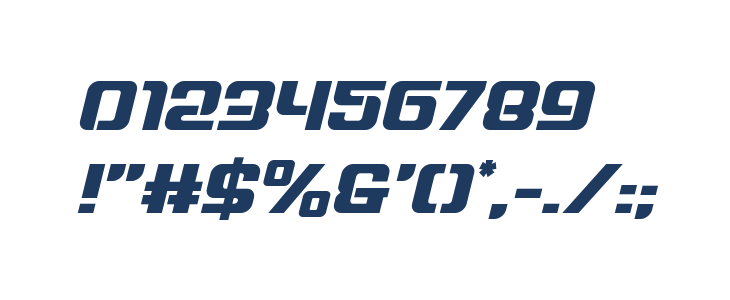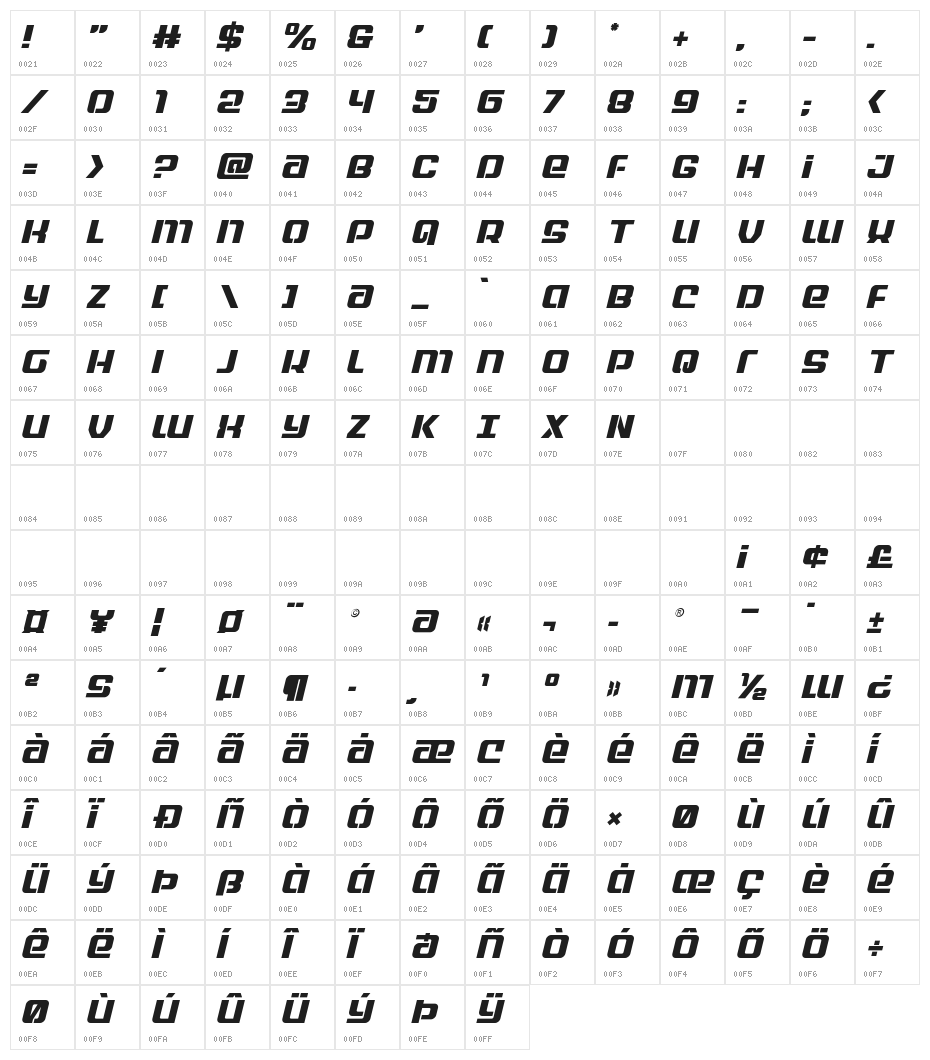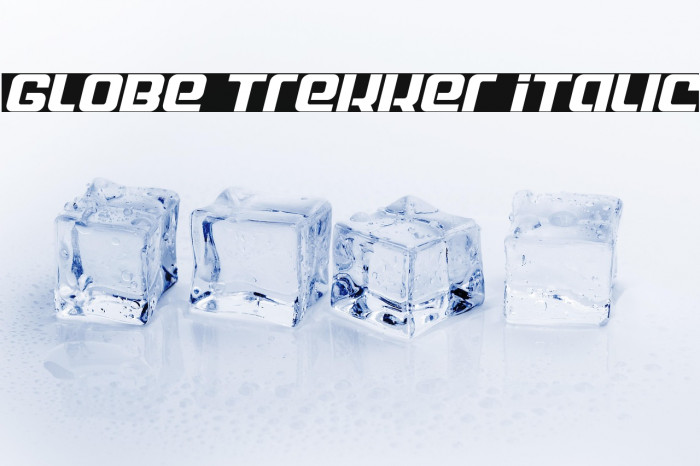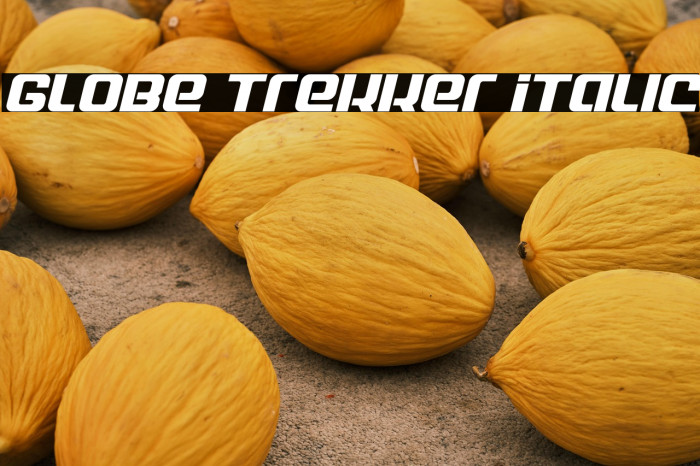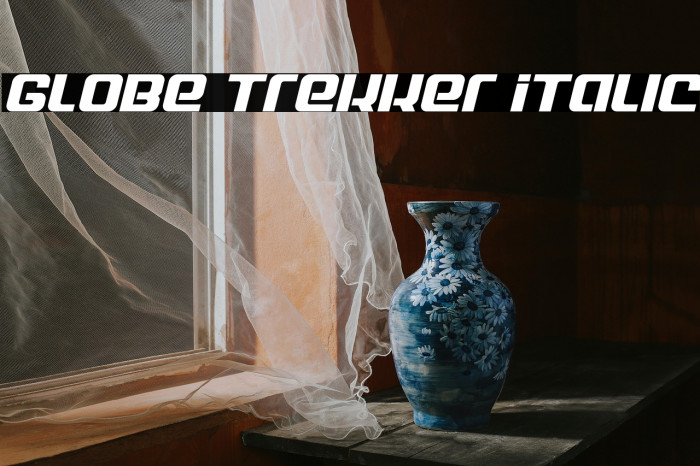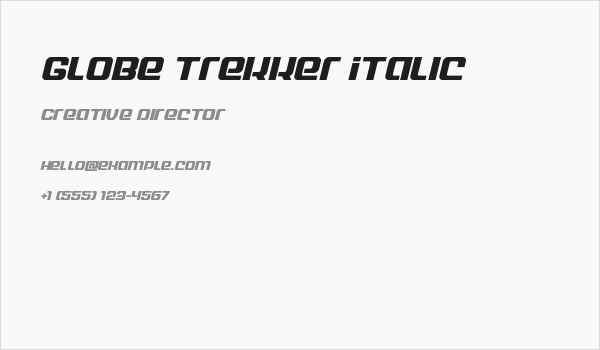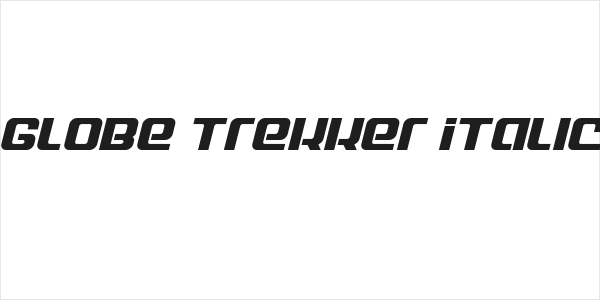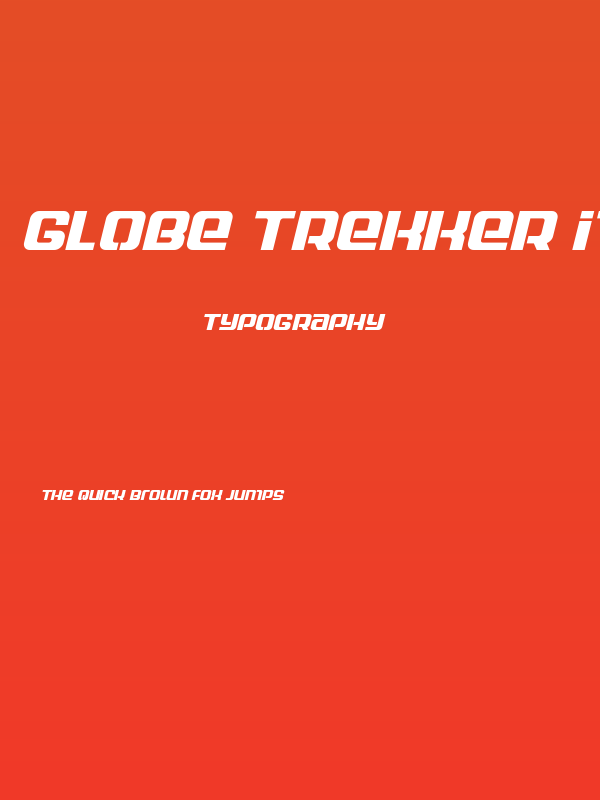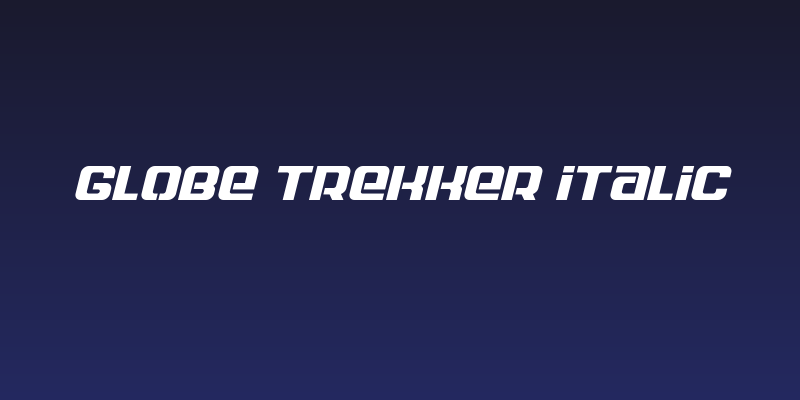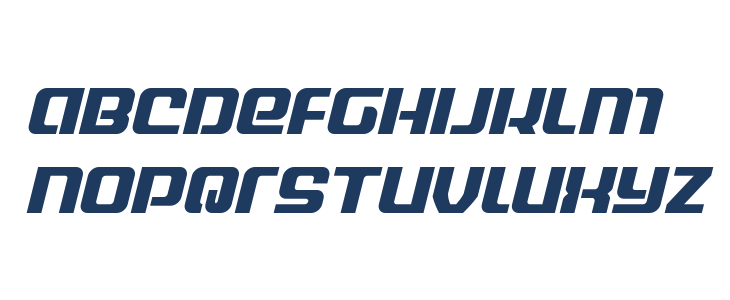
Globe Trekker Italic Font
Globe Trekker Italic Description
This font features a bold, italicized style with a modern and dynamic appearance. The characters are slightly slanted, giving a sense of motion and energy. The strokes are thick and consistent, contributing to a strong visual impact. The design is clean and geometric, with sharp angles and smooth curves that enhance its contemporary feel. The spacing between characters is tight, which adds to the compact and cohesive look of the text. This font is well-suited for projects that require a bold and assertive typeface, such as branding, advertising, and sports-related materials. Its unique style makes it stand out, while still maintaining readability and clarity.